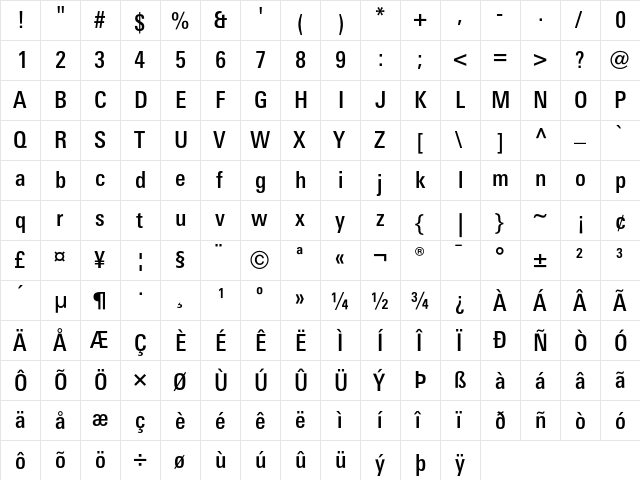
LinotypeUnivers CondMedium
Design Context for LinotypeUnivers Typeface
LinotypeUnivers is a composed and adaptable typeface that performs quietly and consistently across a wide range of design contexts. The condensed width makes it efficient for tight spaces without sacrificing legibility.
Pro Tip: Use LinotypeUnivers in both headline and body roles to test its range before committing to a single application.